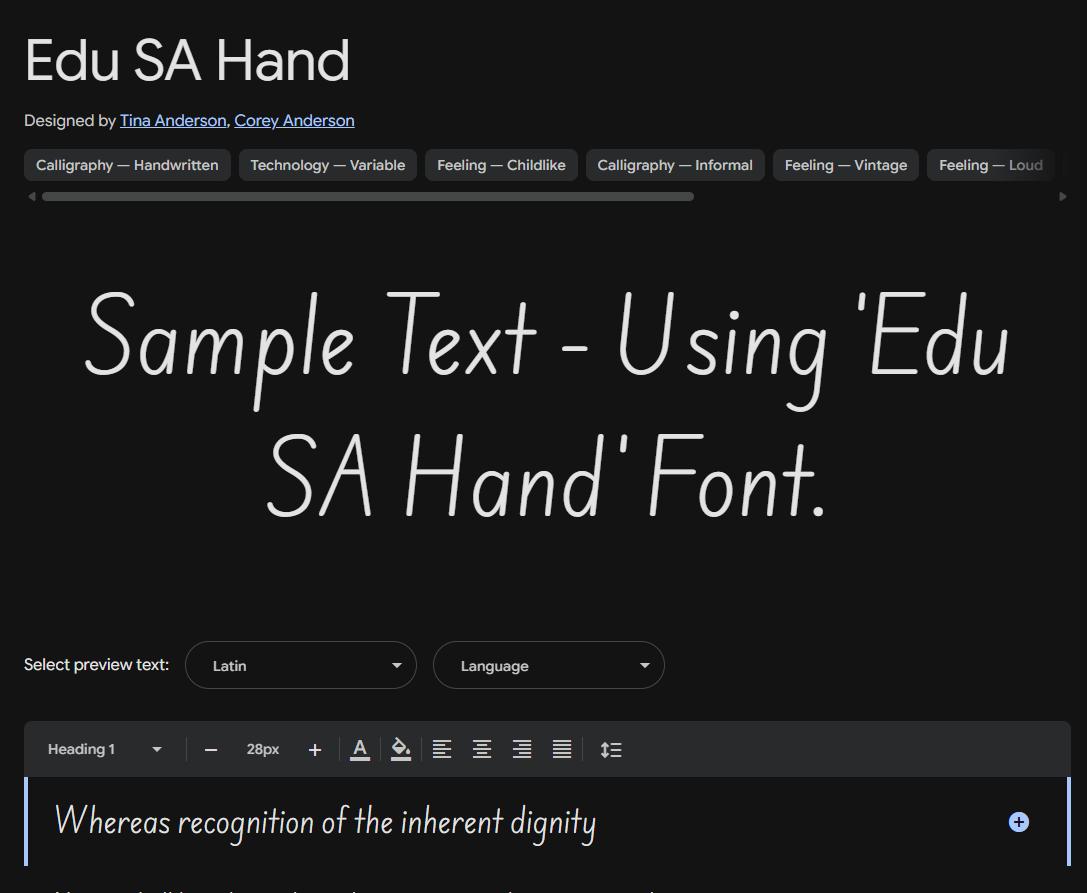
The Edu SA Hand typeface, meticulously engineered by designers Tina Anderson and Corey Anderson, represents a sophisticated fusion of pedagogical standards and modern font technology, specifically tailored to the South Australian modern cursive syllabus. As a variable font operating on a singular weight axis, it offers seamless interpolation that allows for precise control over stroke thickness, ensuring optimal legibility and visual hierarchy across diverse digital display environments without sacrificing the structural integrity of its instructional letterforms. By integrating traditional handwriting join logic into a dynamic OpenType framework, this typeface transcends static educational tools, providing a semantically rich typographic solution that balances the rigorous geometric requirements of early childhood literacy with the technical flexibility of contemporary variable font architecture.
The Edu SA Hand font family represents a sophisticated convergence of instructional calligraphy and modern OpenType Variable Font technology, utilizing fluid interpolation to bridge the gap between structured pedagogical standards and a rugged, handcrafted aesthetic. Its design architecture prioritizes an informal, handwritten morphology that captures a vintage, analog essence while maintaining the active, playful energy required for contemporary digital learning environments. By leveraging variable axes, the typeface transitions seamlessly from a delicate, childlike touch to a loud, happy presence, ensuring that its playful and energetic character remains semantically legible across diverse viewport resolutions. This unique synthesis of informal calligraphic strokes and technical variability allows designers to evoke a sense of nostalgic warmth and rugged authenticity, transforming static educational text into an active, visually stimulating experience that feels both human-centric and technologically advanced.
Edu SA Hand, a variable weight typeface meticulously engineered by Tina Anderson and Corey Anderson to align with South Australian pedagogical handwriting standards, is inherently unsuitable for high-stakes corporate environments like legal litigation or algorithmic financial reporting where typographic neutrality and advanced OpenType features are paramount. Its monolinear stroke architecture and specific exit flick geometries, designed for K-12 letterform acquisition, create a semiotic conflict when applied to luxury branding or cybersecurity interfaces, as the typeface lacks the sophisticated optical sizing and rigorous kerning pairs required for high-density information environments. Utilizing a font rooted in developmental education for complex technical documentation undermines professional gravitas, as its structural DNA-focused on cursive foundational learning-fails to support the structural hierarchy and rapid legibility demands of enterprise-level data visualization.
Clean, geometric sans-serifs like Montserrat or Open Sans provide a stable visual anchor that balances the organic, flowing strokes of Edu SA Hand. Cross-referencing x-height ratios suggests that high-aperture secondary fonts minimize visual friction when paired with the cursive-style glyphs of this specific educational script.
This font is generally discouraged for extensive body copy because its handwritten nature can lead to significant reader fatigue over time. Eye-tracking studies indicate that the high stroke variance and specific joinery of South Australian school fonts decrease scanning speed compared to standardized humanist sans-serif families.
For optimal legibility in printed instructional materials, a minimum size of 12 points is recommended to preserve the integrity of the fine stroke details. At smaller point sizes, the standard anti-aliasing process often obscures subtle terminals, leading to a critical loss of character definition in the font's complex vector pathing.
Edu SA Hand can introduce a humanistic and approachable touch to minimalist logos when utilized sparingly for brand names or instructional taglines. The font's geometric baseline consistency allows it to anchor negative space effectively without the excessive ornamentation typically found in traditional script typefaces.
Its educational origins make it highly effective for callouts and step-by-step guides where a personal, pedagogical tone is required for the audience. Utilizing this font for primary labels leverages the cognitive load theory principle of familiarity, potentially increasing information retention for learner-centric data visualizations.
In high-density layouts, increasing the letter spacing slightly is essential to prevent the fluid strokes from merging and becoming an illegible cluster. Adjusting the tracking to a positive value between +2% and +5% maintains the distinctiveness of individual ligatures, preventing optical crowding within tight composition grids.
While suitable for accent elements or onboarding hints, it is not an ideal choice for functional UI components like navigation menus or data-heavy buttons. The irregular stroke weights frequently create rendering artifacts on standard LCD panels, which can compromise the accessibility standards required by WCAG 2.1 contrast guidelines.
Subtle, organic textures like kraft paper, light linen, or chalkboard surfaces enhance the authentic, tactile aesthetic of the typeface. High-frequency noise in a background can interfere with the thin stem-weight of the glyphs, so a low-pass filter approach to texture selection is technically superior for maintaining legibility.
The font excels in large-scale applications where its unique South Australian cursive characteristics can be fully appreciated and scrutinized by the viewer. When scaled beyond 72 pixels, the bezier curves exhibit a mathematical smoothness that reflects the precise vector modeling of the original educational handwriting guidelines.
On modern high-DPI mobile screens, the font remains readable, though it may struggle significantly on older, low-resolution hardware. Rasterization benchmarks demonstrate that the intricate loops of Edu SA Hand require high subpixel rendering precision to avoid "blurring" effects at lower pixel densities.